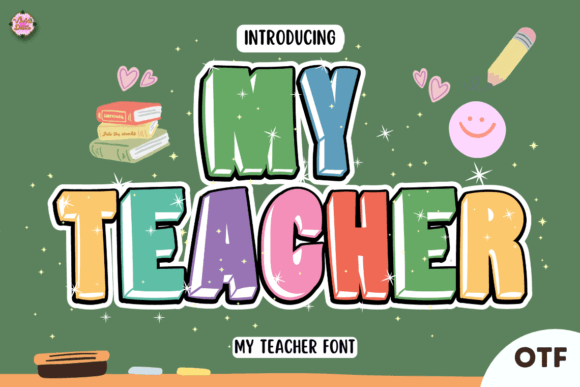
My Teacher Font
Introducing My Teacher Font—a charming and versatile typeface perfect for back-to-school, Teacher’s Day, education-themed projects, and various design applications. This font includes an alphabet suitable for creating titles, headers, lettering, posters, greeting cards, invitations, banners, and more. Each character is crafted with a touch of warmth and friendliness, making it ideal for celebrating teachers and the learning environment.